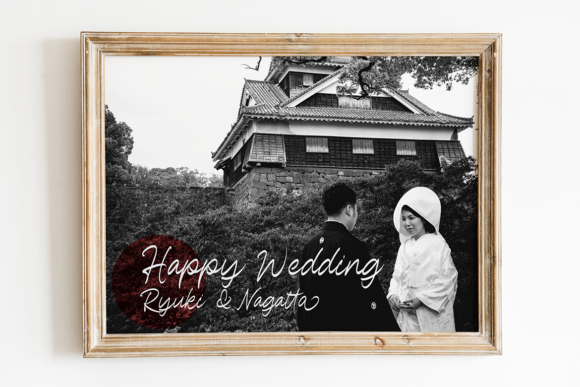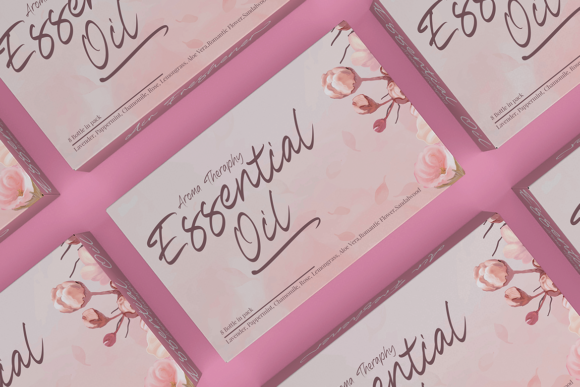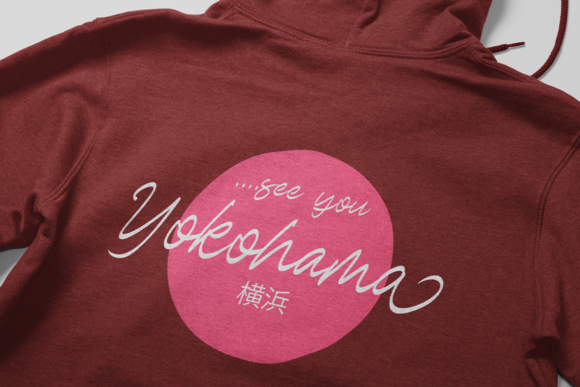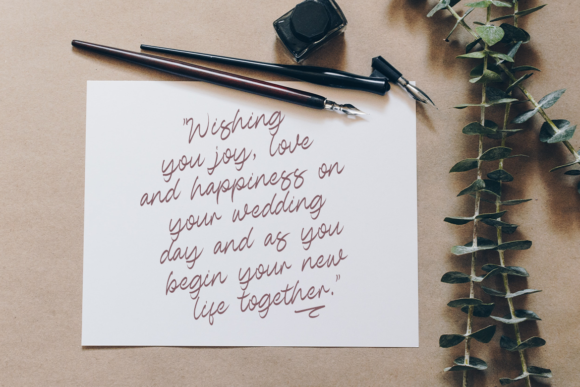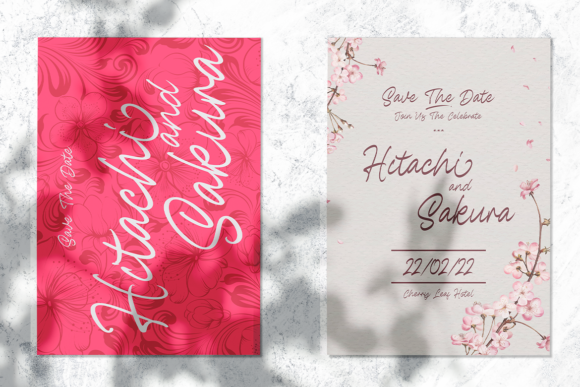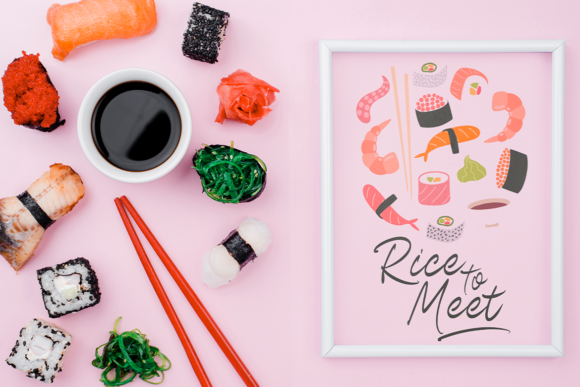
Introduction to Raigatta Script Font
Raigatta Script is a versatile and cursive handwritten font.
Fall for its ravishing style and use it to create gorgeous wedding invitations, beautiful stationary art, eye-catching social media posts, and much more Raigatta Script is PUA encoded which means you can access all of the amazing glyphs and ligatures with ease.